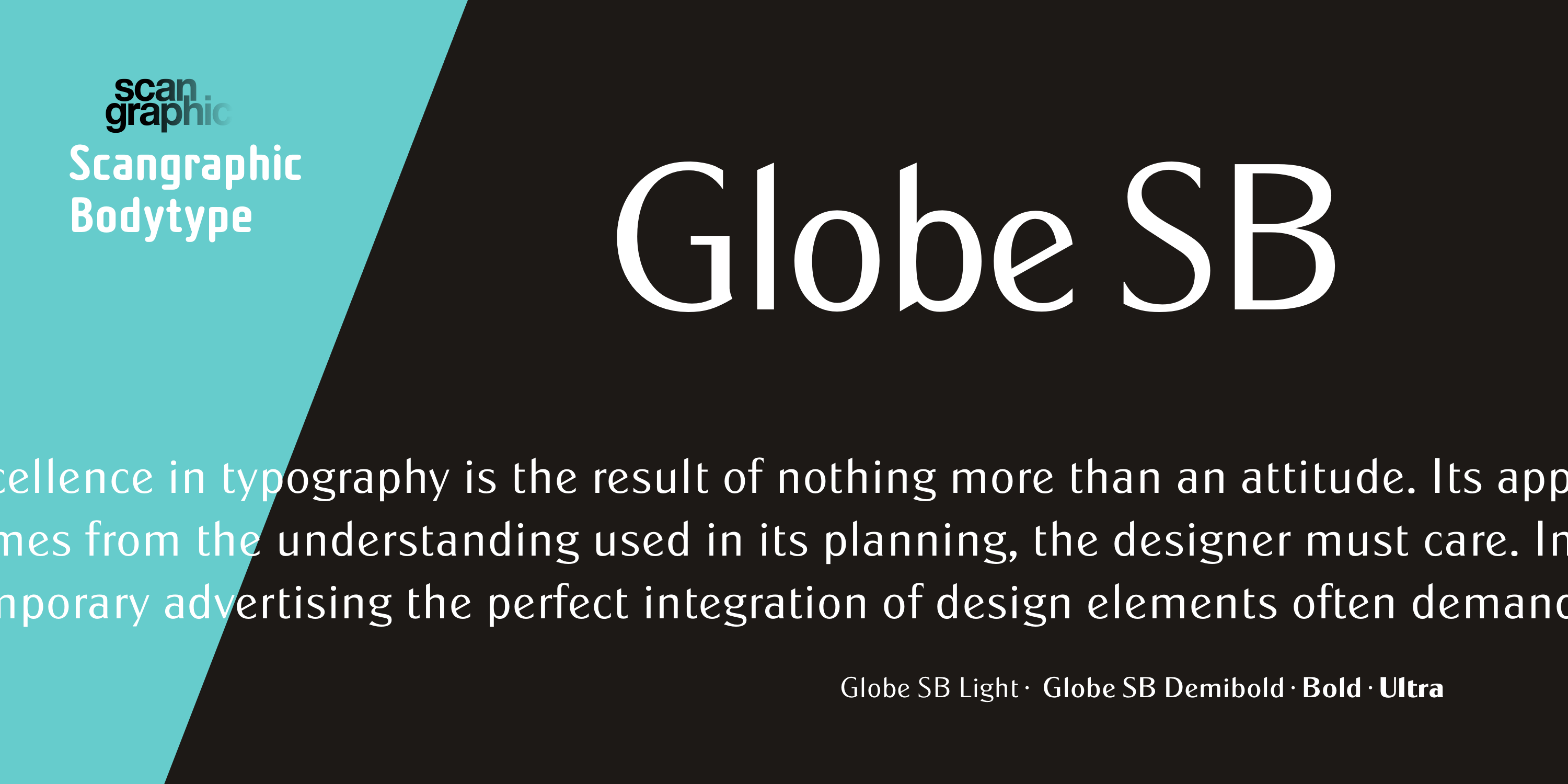
Globe SB Font is ideal for international business communications, global travel agencies, worldwide shipping companies, international educational institutions, multinational corporate branding, global news organizations, world atlas publications, international conference materials, global marketplace platforms, and universal diplomatic communications.
What makes Globe SB Font exciting is its universal appeal and global sophistication that captures the essence of worldwide connectivity with international elegance and cross-cultural communication. This cosmopolitan typeface embodies the spirit of global unity with its inclusive character forms and world-inspired proportions that evoke spinning globes in boardrooms, international airports bustling with travelers from every continent, and the kind of universal design that transcends cultural boundaries to communicate effectively across all nations. The font's global character creates an immediate impression of international competence and the kind of worldwide perspective that defines successful global enterprises.
Globe SB Font family includes regular weight with internationally crafted character designs featuring global curves and worldwide proportions. The typeface maintains exceptional readability while showcasing its distinctive universal personality through comprehensively designed letterforms that reflect the inclusive thinking and cross-cultural sensitivity that characterizes excellent international communication.
Global communication professionals consistently select Globe SB Font Free Download for projects requiring authentic international appeal and worldwide credibility. This remarkable typeface brings the power of global connectivity to brand communications, combining universal aesthetics with international functionality to create memorable worldwide experiences. The globally designed characters ensure international positioning across all applications, making it essential for multinational corporations, international organizations, and any institution seeking to communicate the transformative power of global unity and the universal understanding that comes from embracing worldwide perspectives through Globe SB Font Free Download.